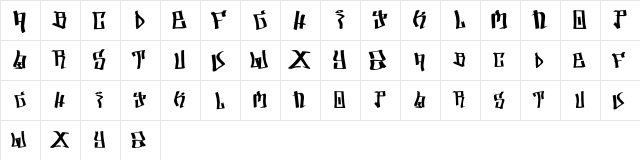
KINGTAG Regular
Design Context for KINGTAG Typeface
KINGTAG is a composed and adaptable typeface that performs quietly and consistently across a wide range of design contexts.